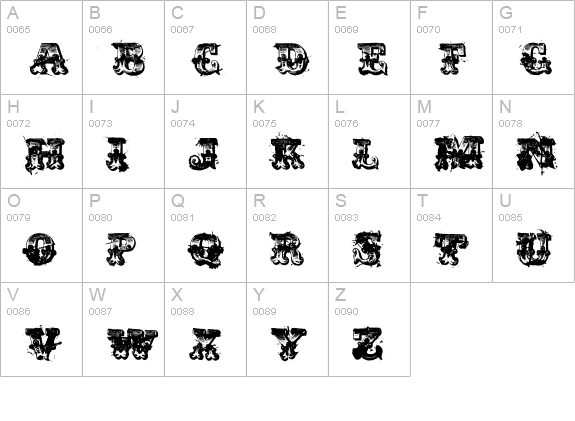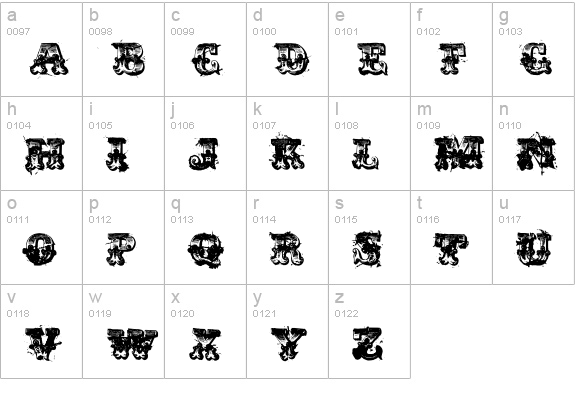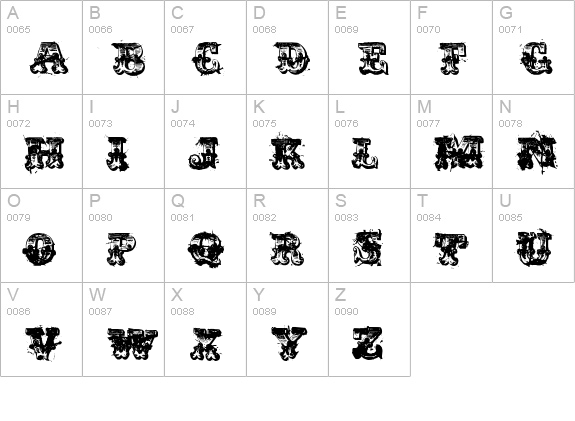
immoral Font Details
Introducing the immoral font, a captivating typeface that pushes the boundaries of artistic expression. With its edgy and rebellious design, this font will add a touch of intrigue and danger to any project. Its unique and daring letterforms are sure to make a bold statement, allowing you to captivate your audience and leave a lasting impression. The immoral font is not just visually striking, but also conveys a sense of mystery and sophistication. Its sleek and sharp lines exude an air of confidence, making it the perfect choice for branding, logo design, advertising, and more. Whether you're aiming to create a high-impact headline or a striking poster, this font will effortlessly elevate your work to new heights. But what makes the immoral font truly remarkable is the fact that it is freely available to download at FontsMarket.com. Yes, you read it right – you can get your hands on this captivating font without spending a dime. FontsMarket.com is a trusted source for high-quality fonts, and they are proud to offer the immoral font as a free download to their valued users. Immerse yourself in the world of creativity and unleash your imagination with the immoral font. Its versatility and artistic flair make it a must-have for designers, artists, and anyone seeking to make a statement. Don't miss out on this incredible opportunity to add a touch of rebellion to your projects – head over to FontsMarket.com now and start exploring the limitless possibilities of the immoral font.